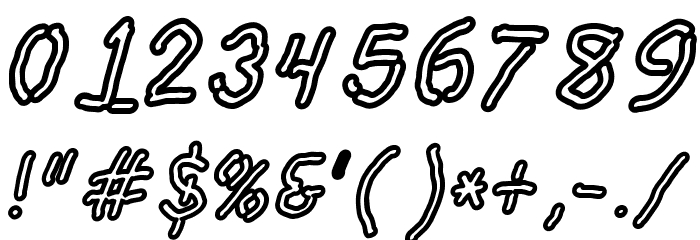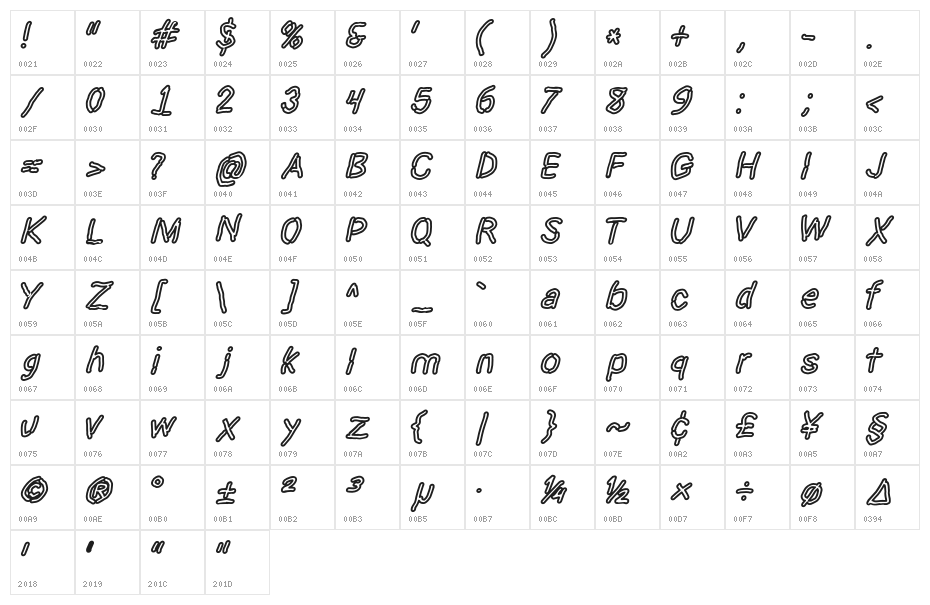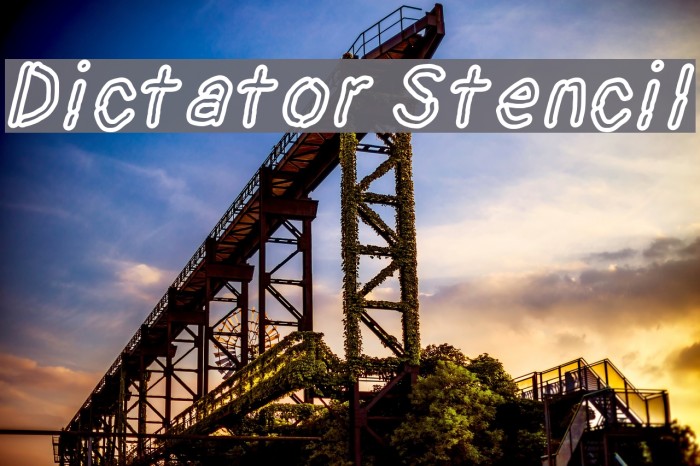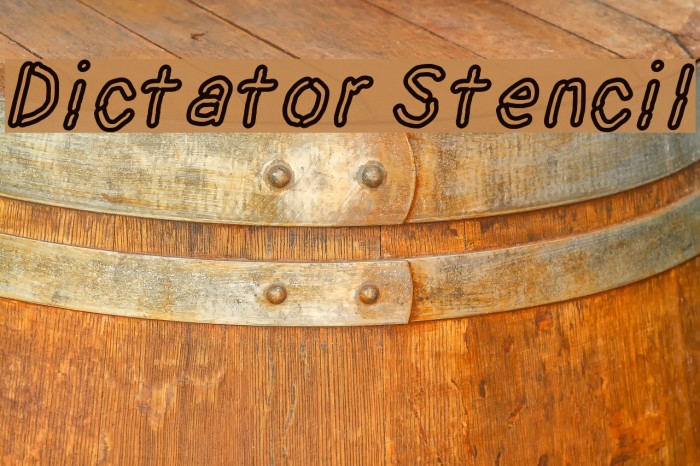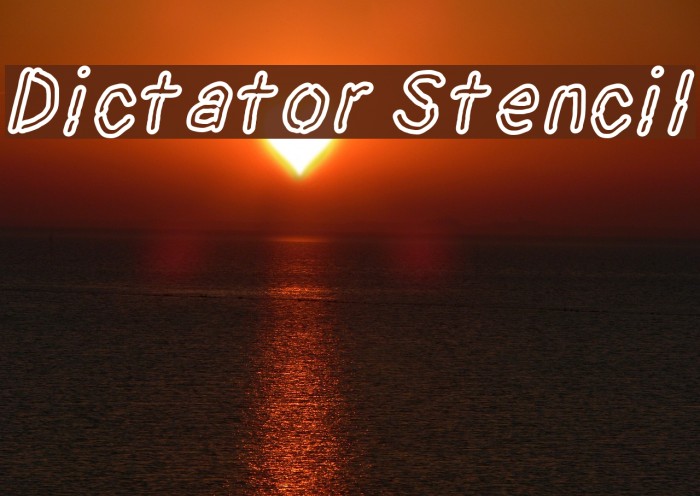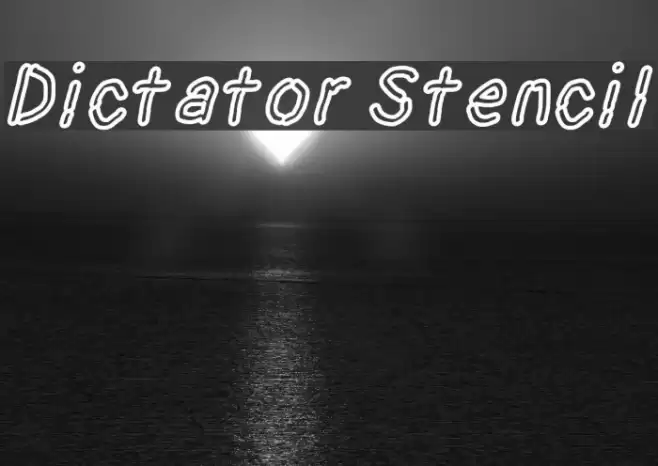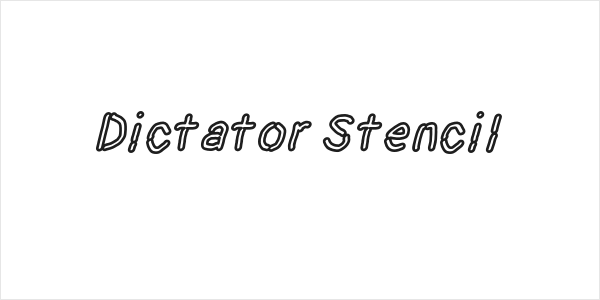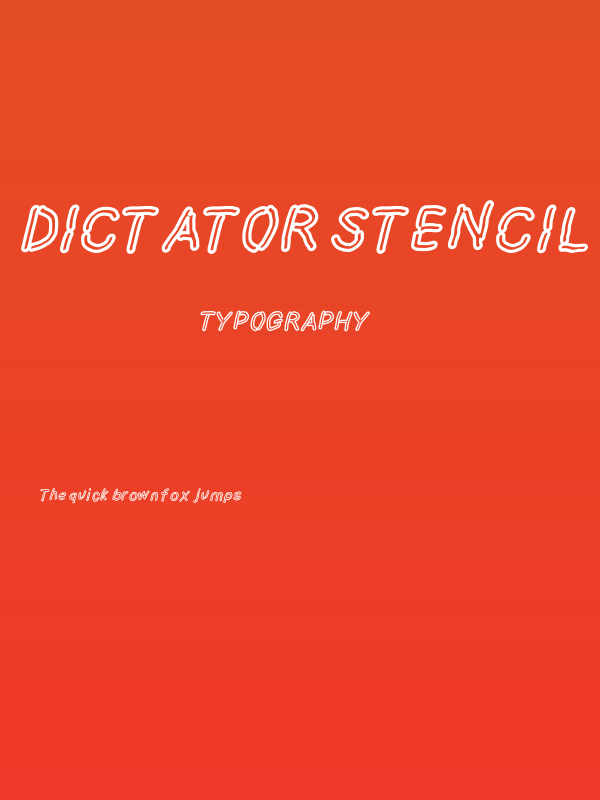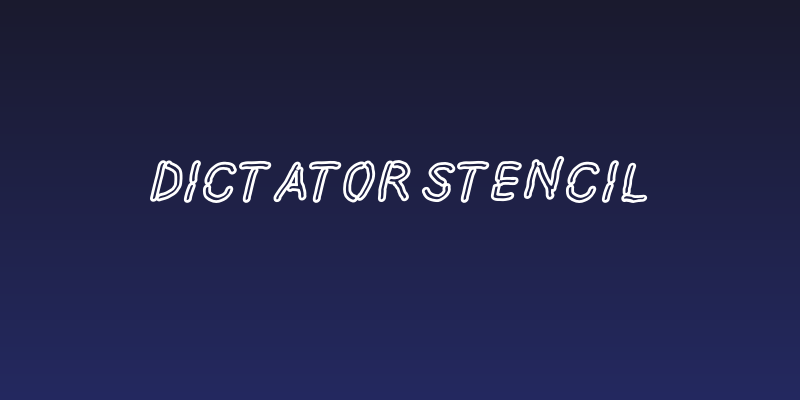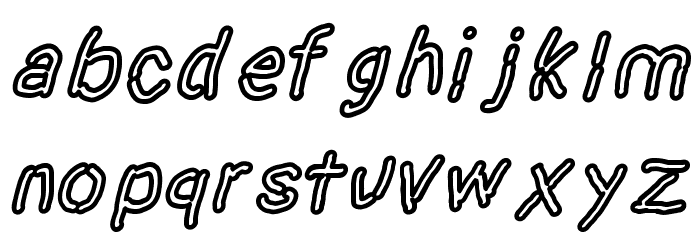
Dictator Stencil Font
Dictator Stencil Description
This font features a bold, stencil-like design with a hand-drawn aesthetic. Each character is outlined with a thick, uneven stroke, giving it a rugged and informal appearance. The uppercase and lowercase letters maintain a consistent style, with rounded edges and a playful, casual vibe. The numbers and special characters follow the same design principles, ensuring uniformity across the font. The overall look is reminiscent of graffiti or street art, making it stand out with its unique and artistic flair.